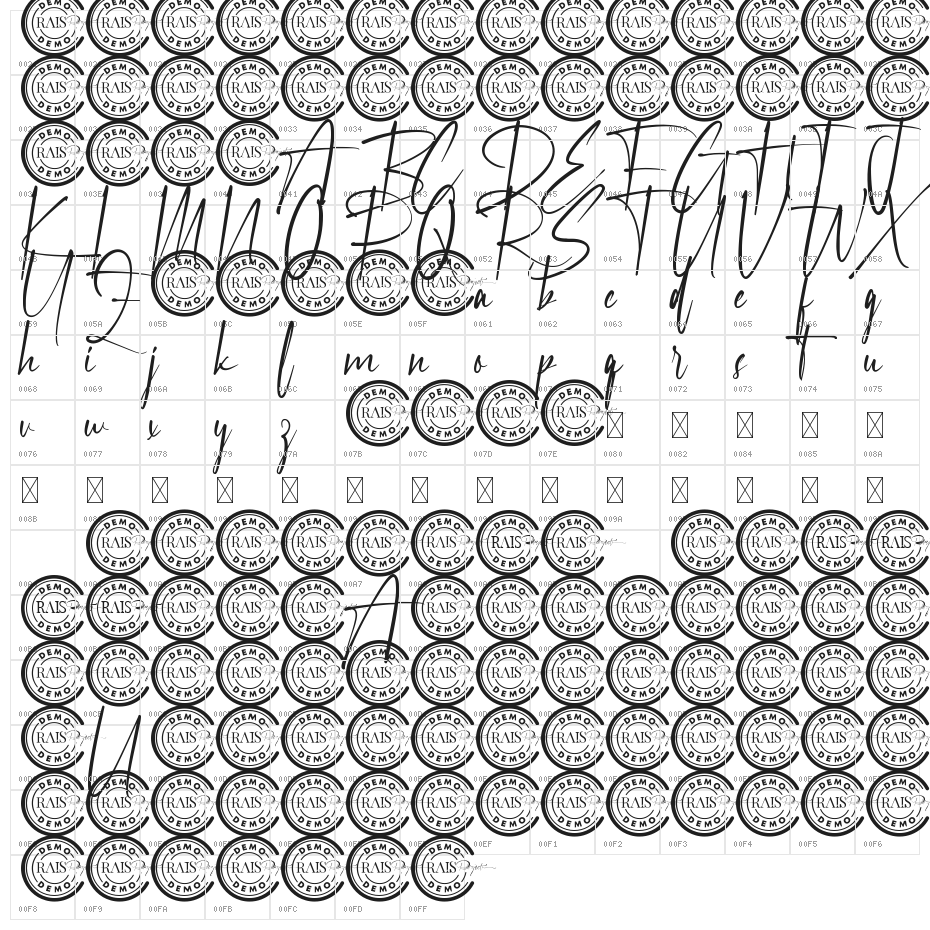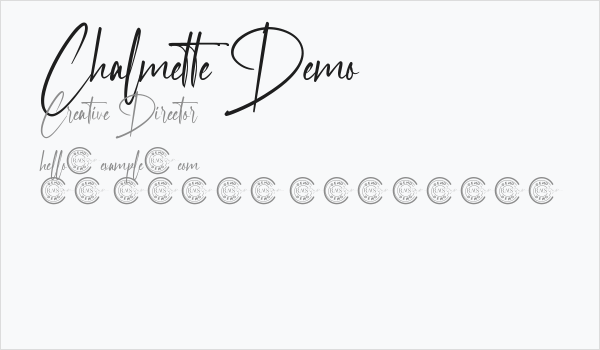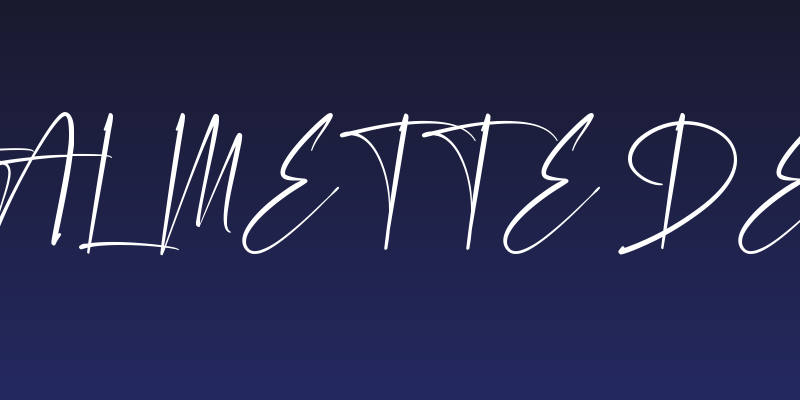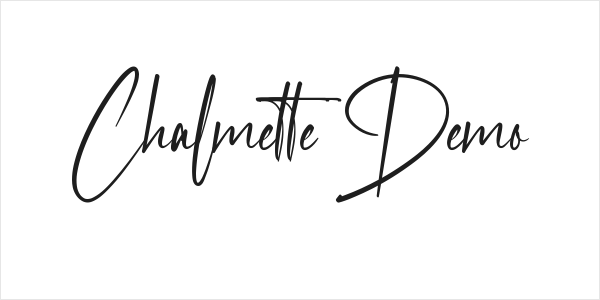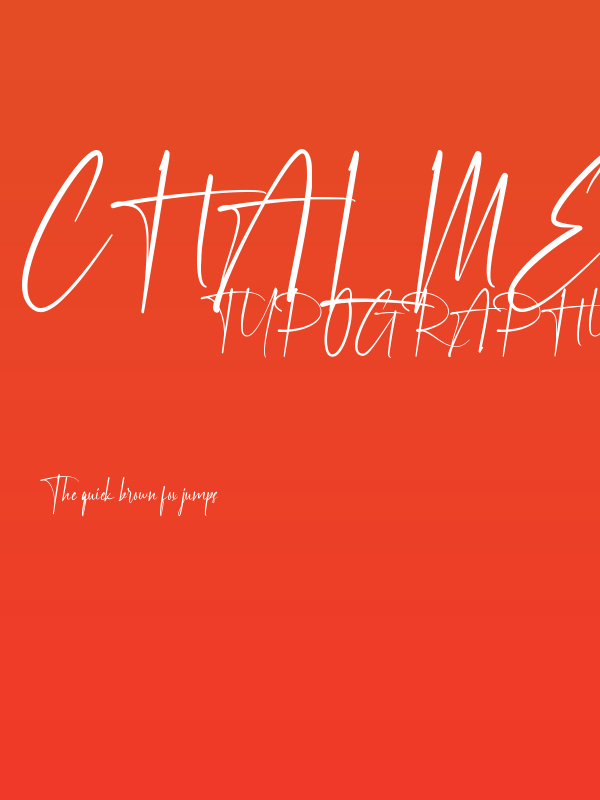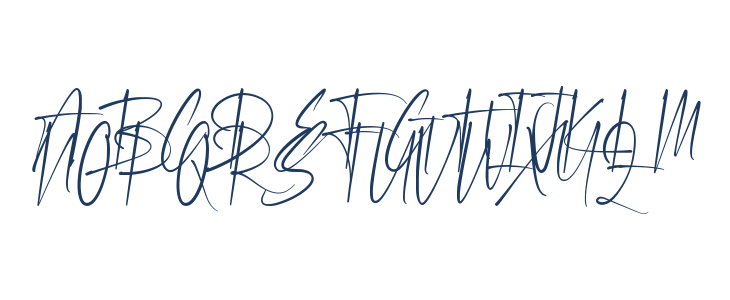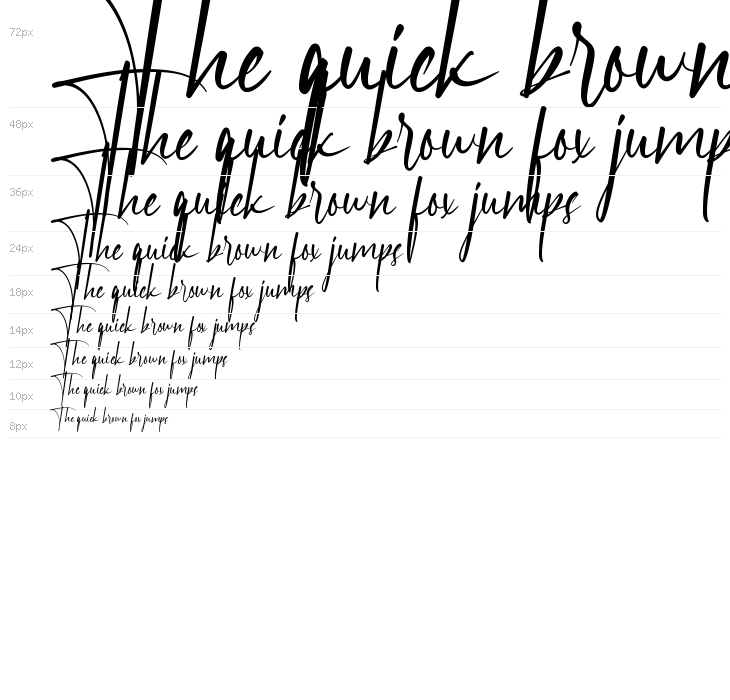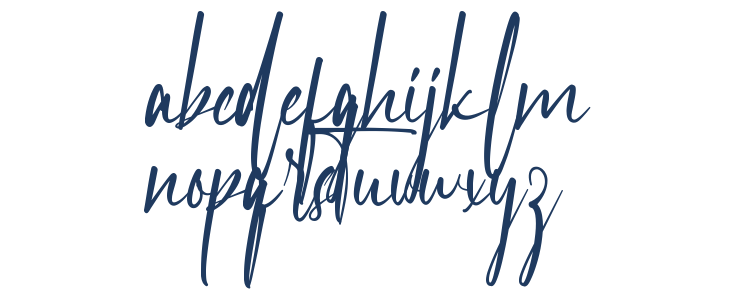
Chalmette Demo Font
Chalmette Demo Description
A handwritten script font with tall, narrow letterforms and a casual, flowing style. The uppercase and lowercase characters are elongated with variable stroke thickness, giving a dynamic and expressive appearance. The font includes both light and bold weights, with some letters featuring dramatic ascenders and descenders.
| Overall Style | Decorative, Artistic, Modern |
| Use Case | Logos, Headlines, Invitations, Artistic projects |
| Proposed Projects | Invitations, personal branding, greeting cards, artistic posters, social media graphics. |